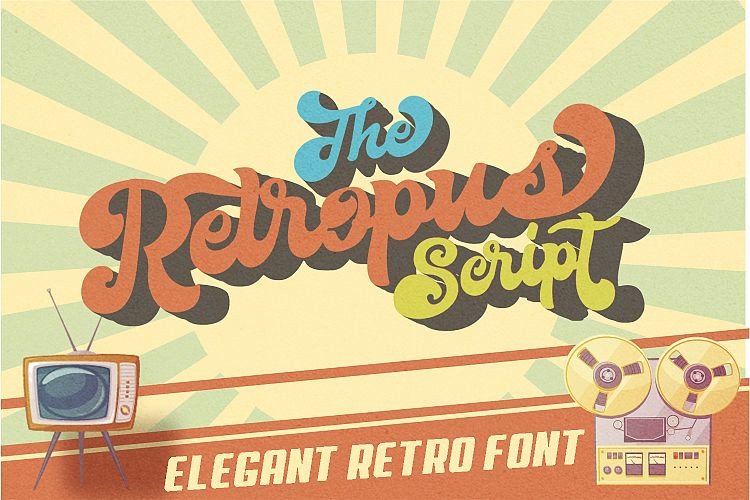
The Retropus Script Font
This is a vintage script font. This font Inspired by Retro style and combination with Handwriting style. Introducing The Retropus Font. It is design and shared by Mhdafifersya.  The Retropus Script made with personality touch every single curve. I hope this can make inspire you from your work. and a very bouncy baseline It has a perfectly paired complimentary marker font , and a super handy set of bonus Swash. Ideal for logos, handwritten quotes, product packaging, header, poster, merchandise, social media & greeting cards.